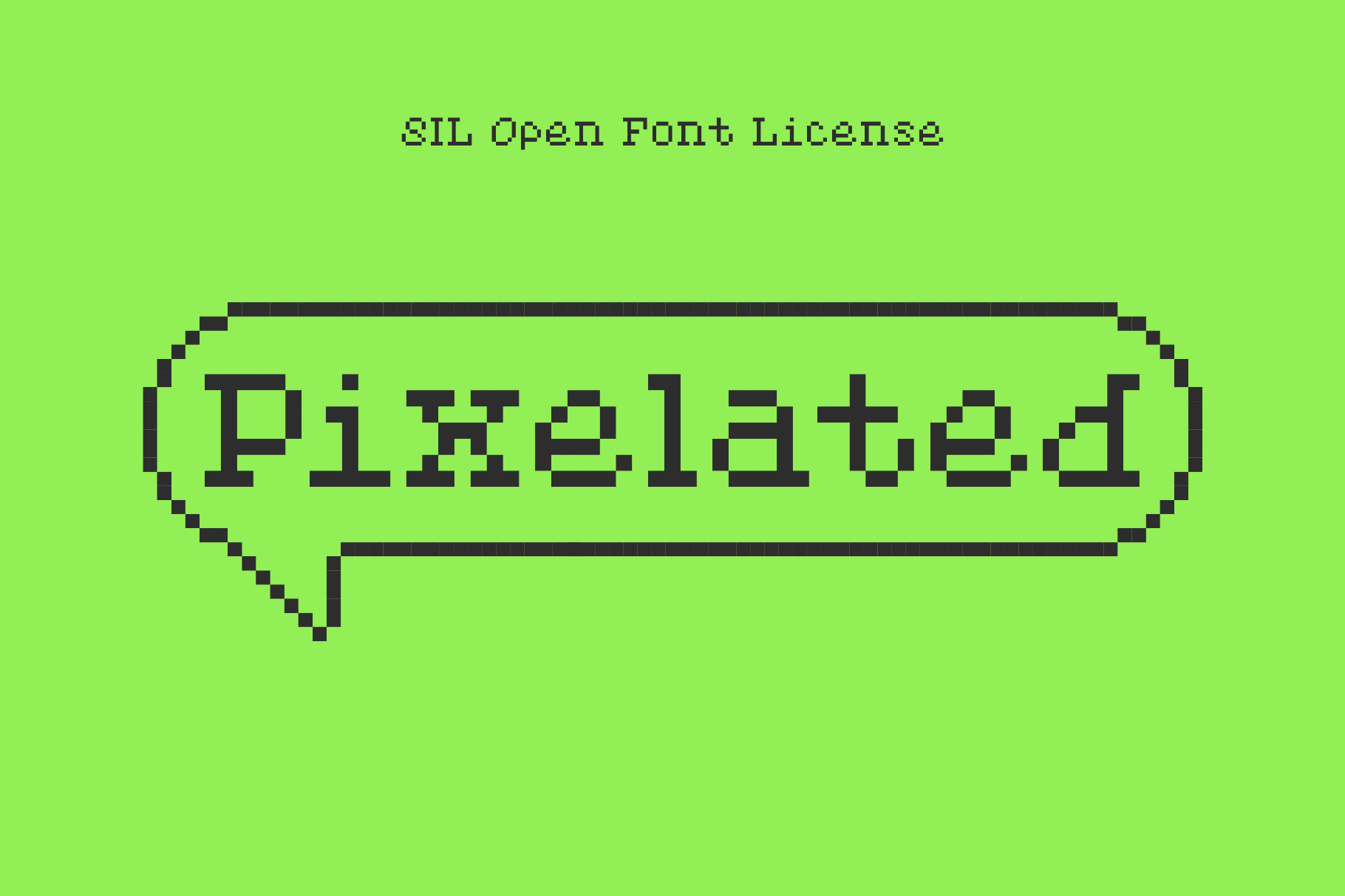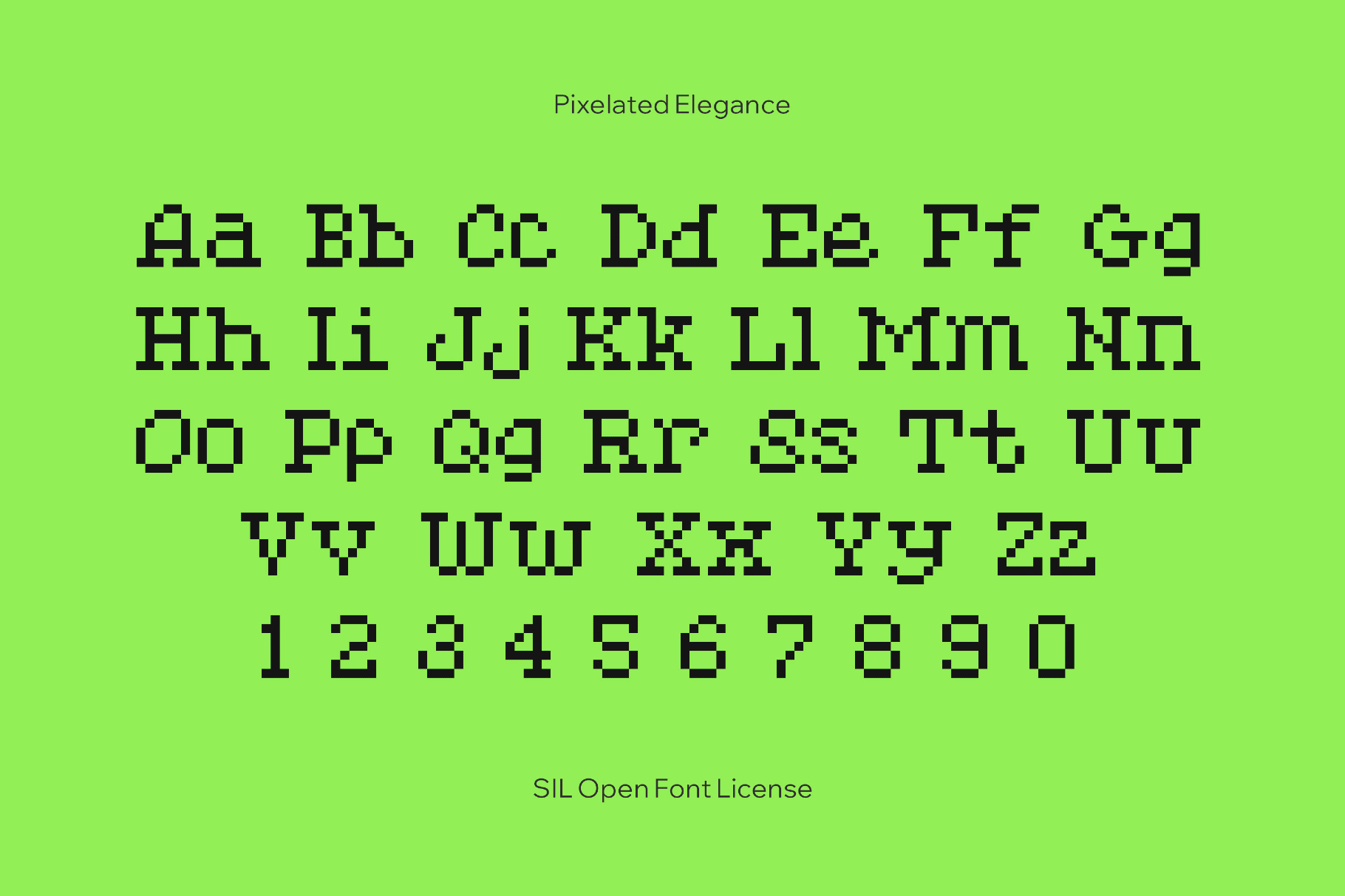
Pixelated Elegance
Pixelated Elegance takes a prim, print-era serif attitude and runs it through a low-res filter. The letters keep their upright posture and tidy contrast, but every curve resolves into stepped pixels.
Use it for game logos, title cards, in-game dialogue, menu systems, retro software and OS mockups, tech or gaming event posters, pixel-art captions, overlays, UI wireframes, social graphics, and lightweight editorial. It also fits music artwork, fashion lookbooks, and identity systems for studios or events.